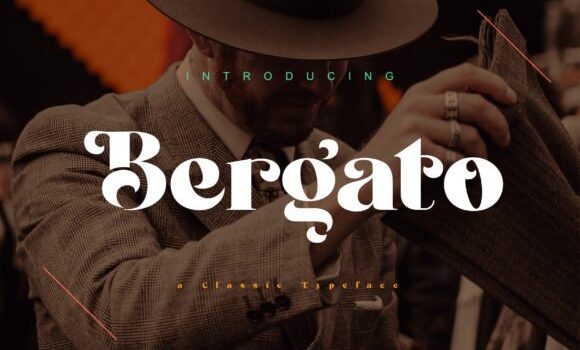
Bergato Font – Free Download Introduction to Bergato Font Bergato is a stylish, bold and incredibly distinct serif font. 📸 Preview Gallery 3 images 📌 Product Name Bergato Font 👤 Author geengraphy 📂 Category Explore ⬇️ Download Bergato Font FREE